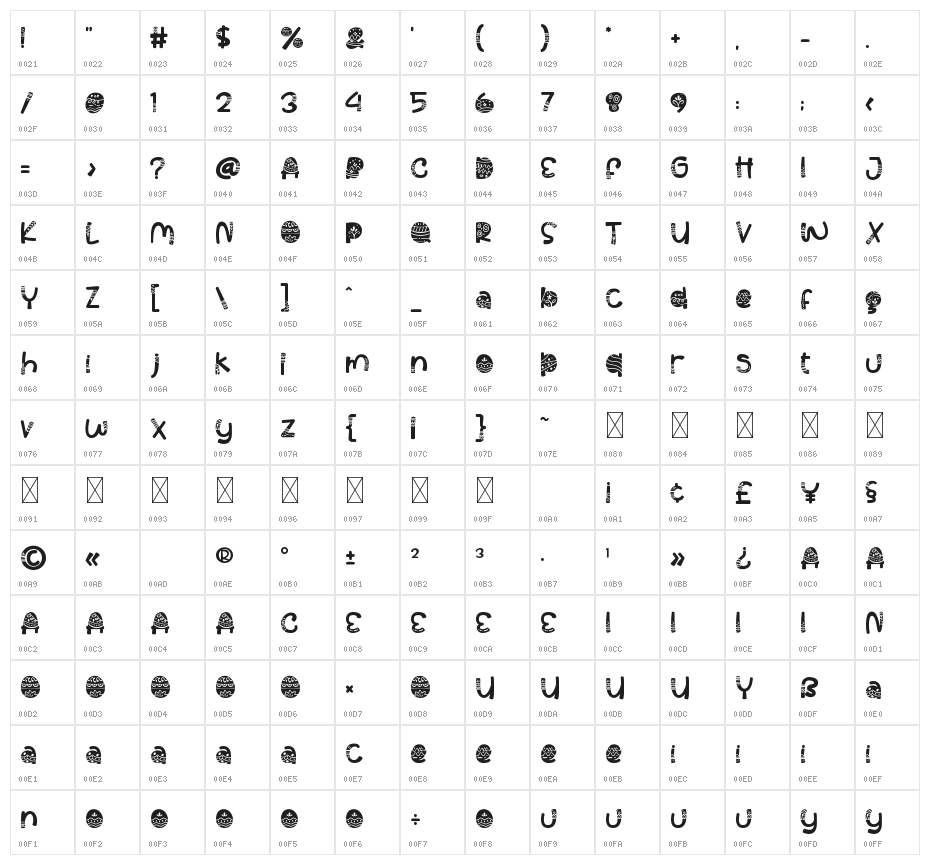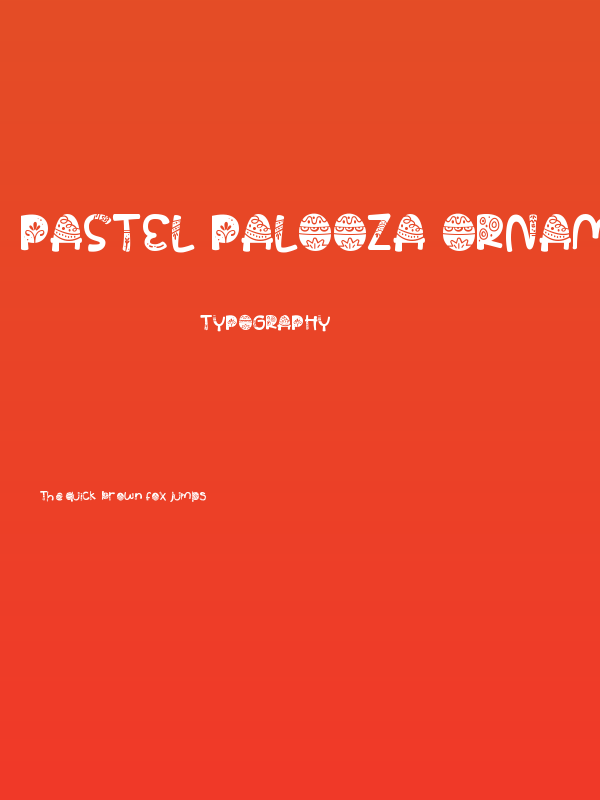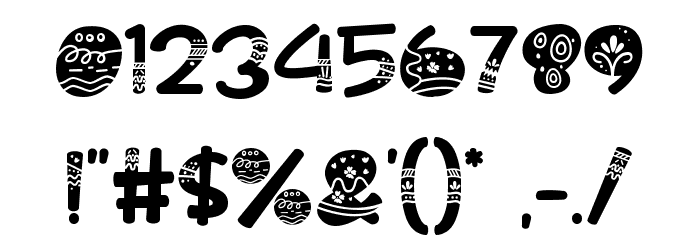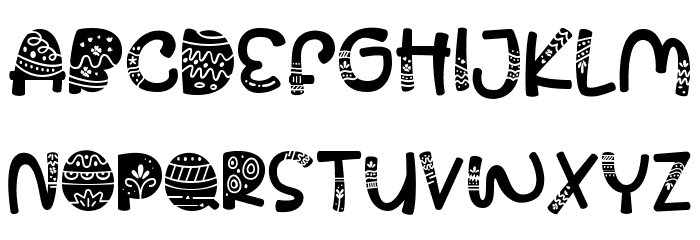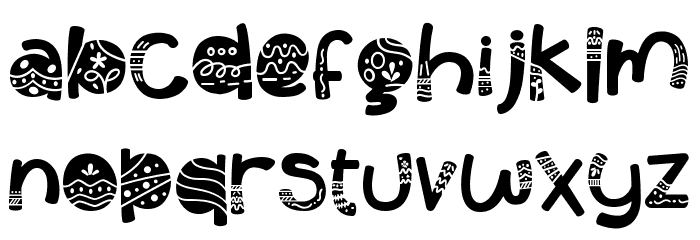
Pastel Palooza Ornament Font
Pastel Palooza Ornament Description
This playful and decorative font features a unique ornamented style, with each character adorned with intricate patterns and designs reminiscent of festive decorations. The bold and rounded letterforms are filled with whimsical motifs such as stripes, dots, and floral elements, creating a lively and eye-catching appearance. The font maintains a consistent weight throughout, ensuring readability despite its elaborate detailing. Its distinctive style makes it ideal for creative projects that require a touch of fun and festivity.
| Proposed Projects | Ideal for holiday cards, party invitations, children's book covers, and festive event posters. |